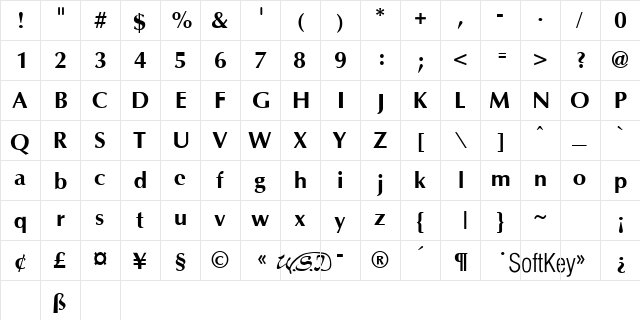
Optim Bold
Design Context for Optim Typeface
Optim is a composed and adaptable typeface that performs quietly and consistently across a wide range of design contexts. The heavy weight commands attention and anchors typographic hierarchies.